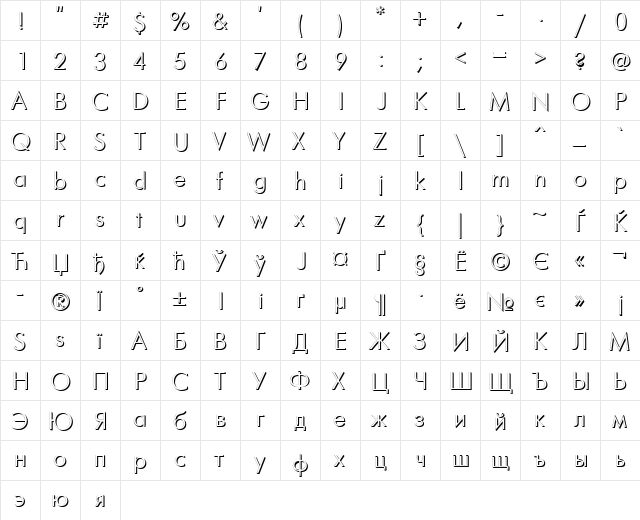
FuturaFuturisVolumeC Regular
Design Context for FuturaFuturisVolumeC Typeface
FuturaFuturisVolumeC has a distinctly futuristic character, with geometric precision and clean angles that feel at home in technology, gaming, and sci-fi contexts.
Pro Tip: Use FuturaFuturisVolumeC in combination with a neutral sans for body text. Let it define the brand voice in headlines while keeping reading comfortable elsewhere.